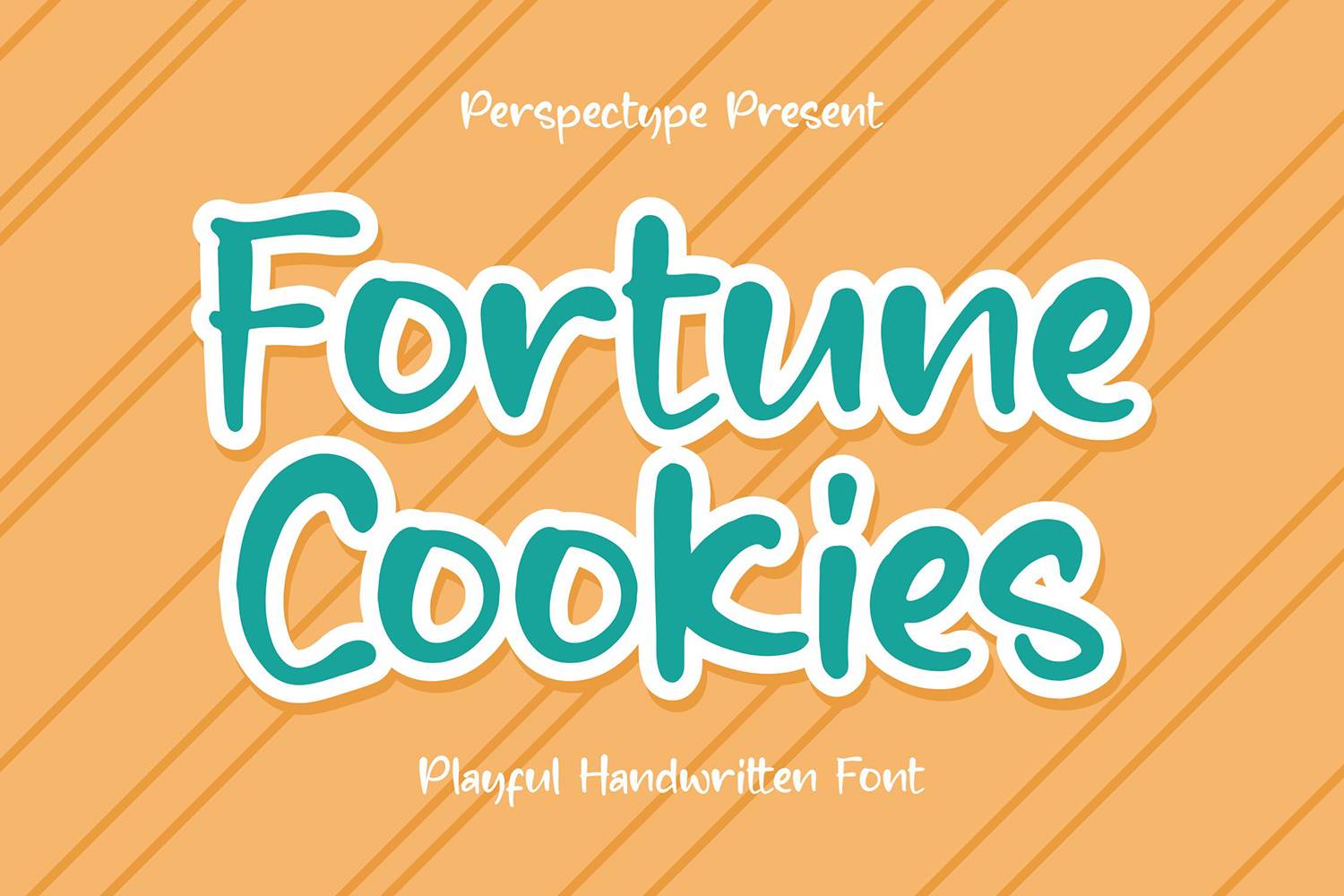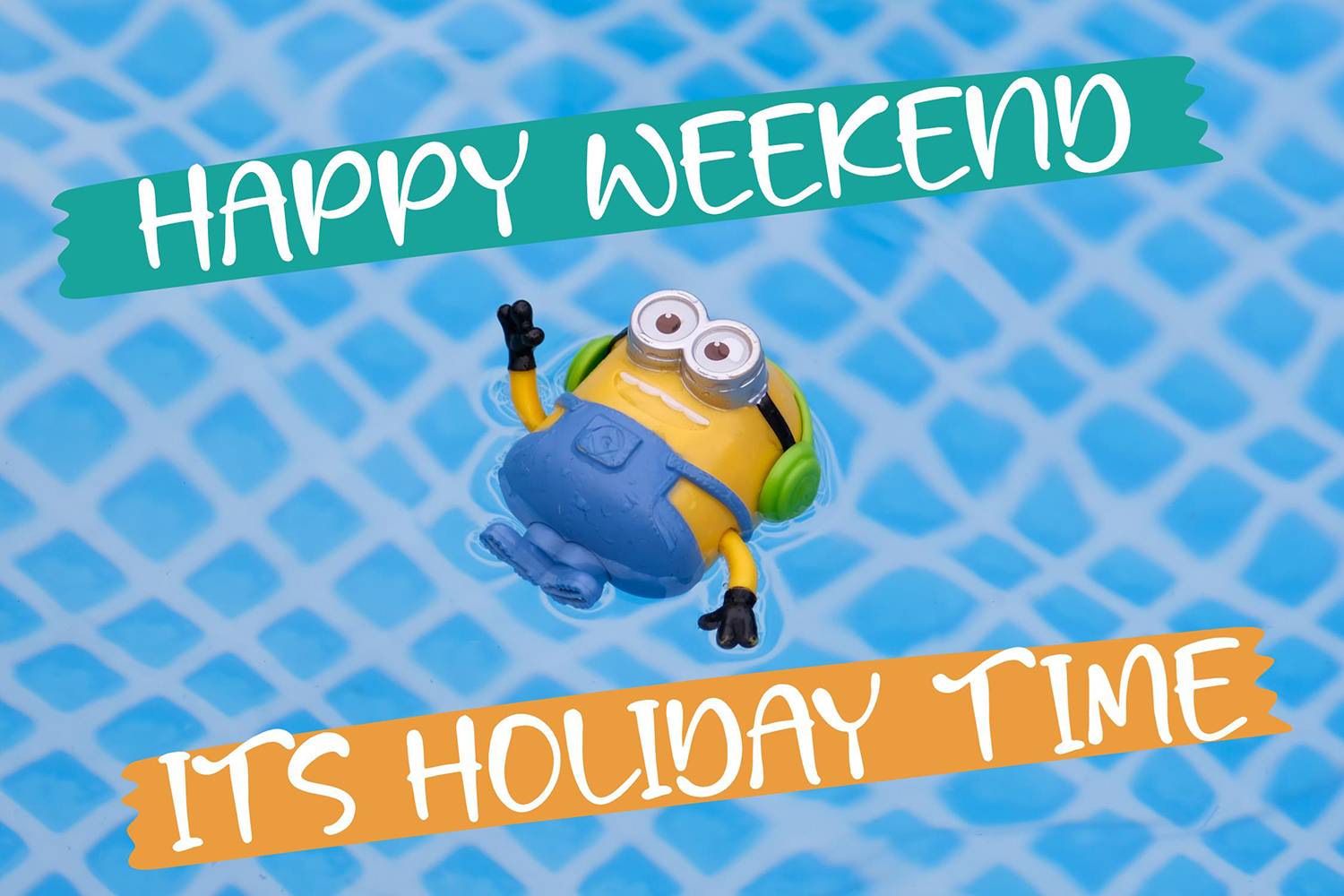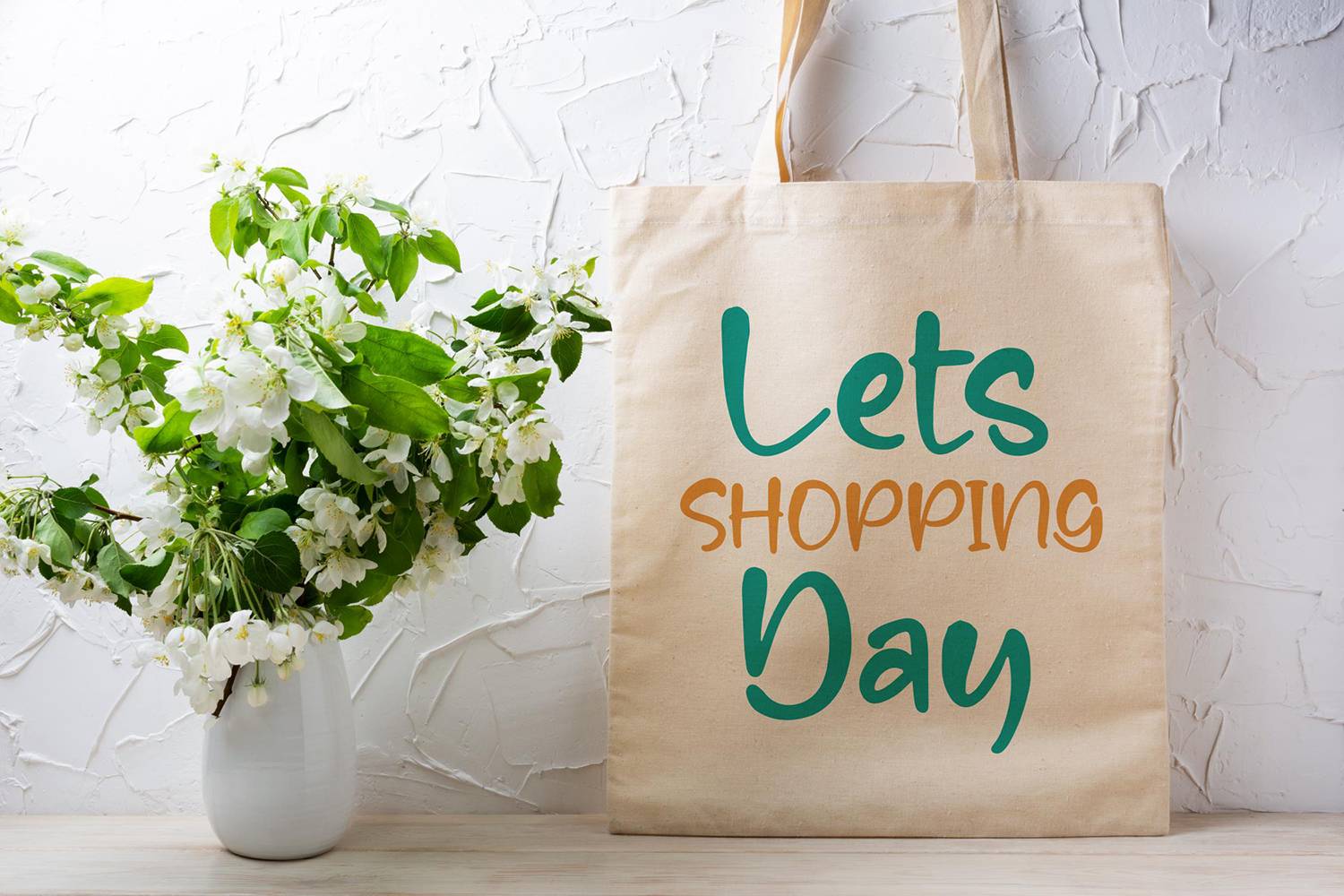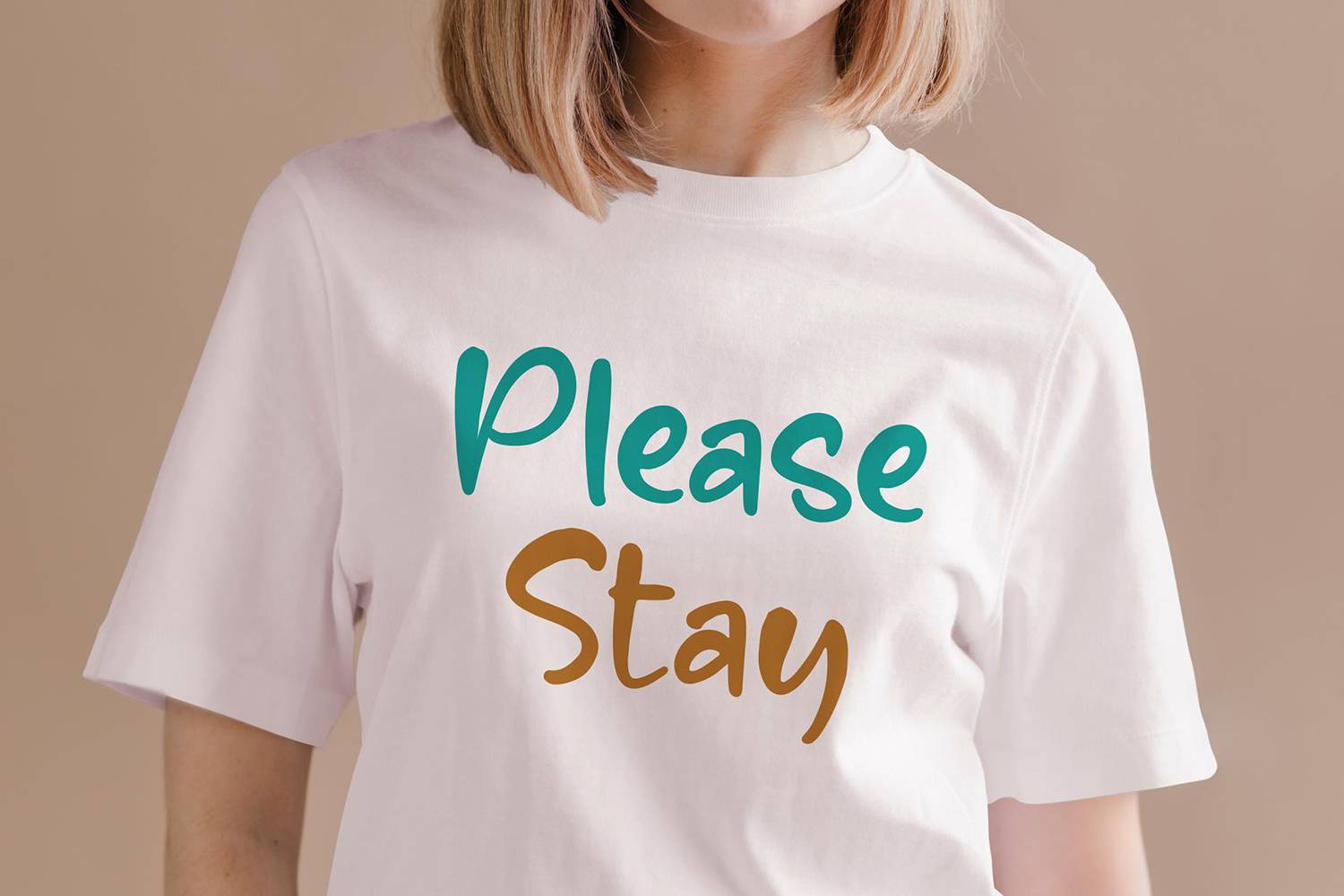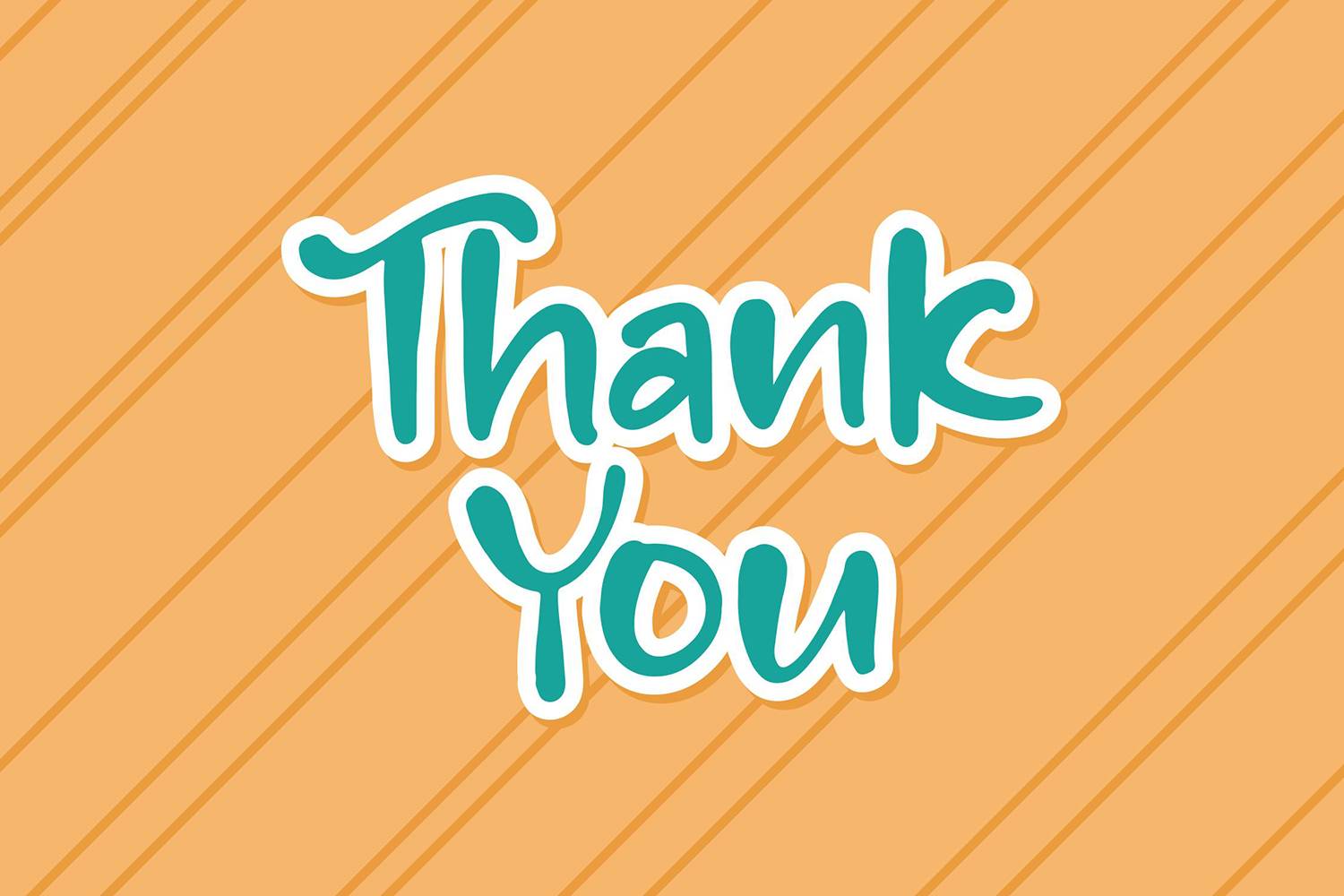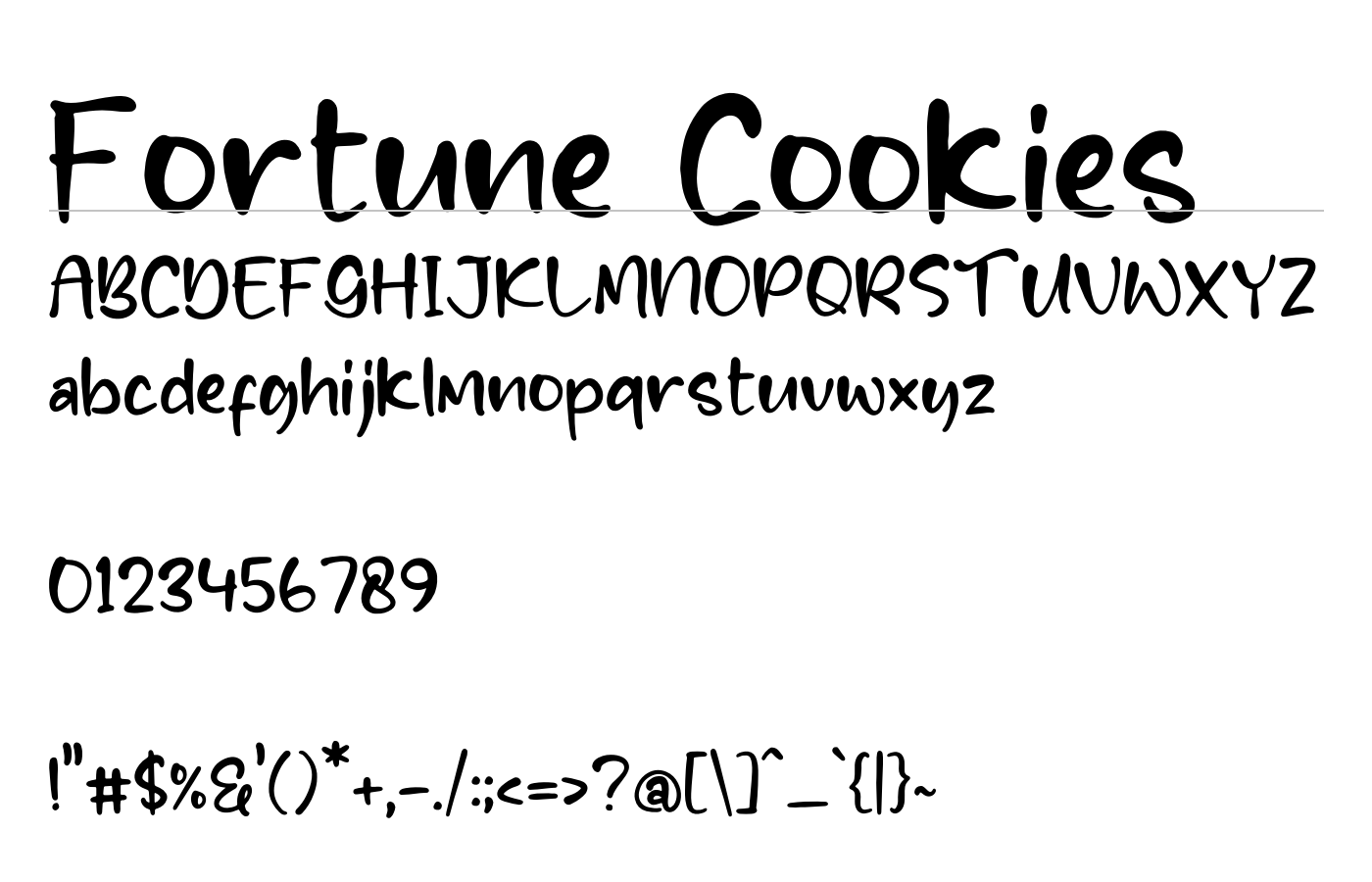
Fortune Cookies Font is a playful and casual handwritten sans serif font with a friendly, slightly uneven stroke that mimics natural penmanship. Its medium weight and airy spacing make it approachable and legible, perfect for adding a personal touch to designs aimed at informal, fun, or creative projects. This font works well for kids' branding, invitations, and other contexts where a warm, charming, and relaxed feel is desired.
Fortune Cookies Font